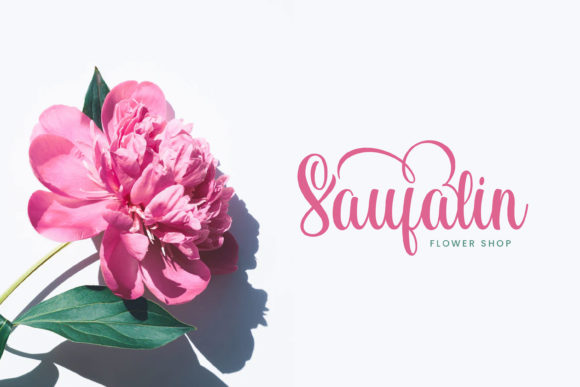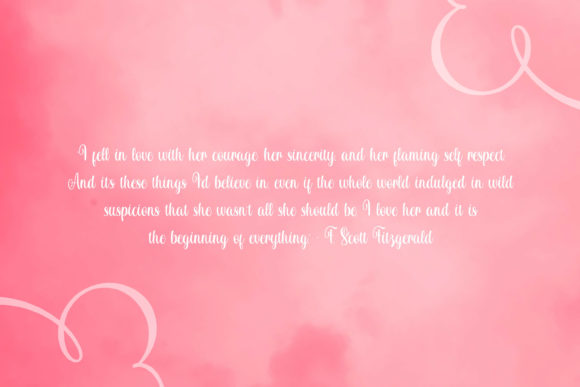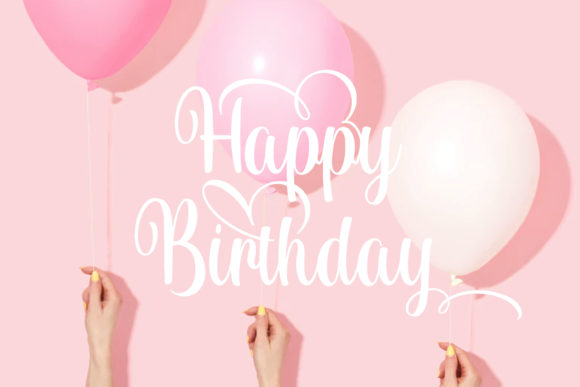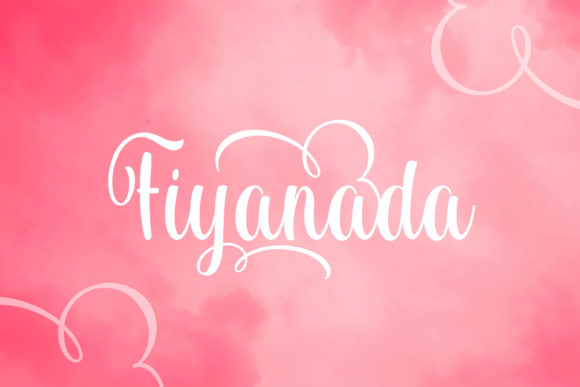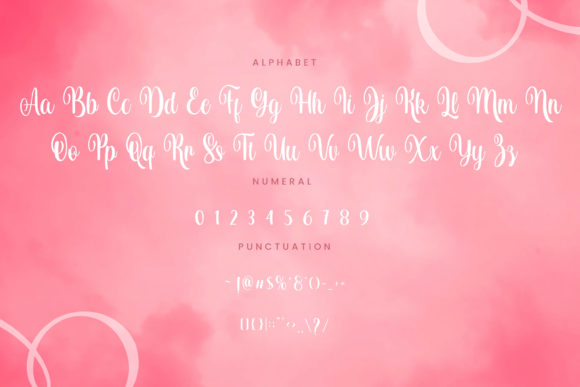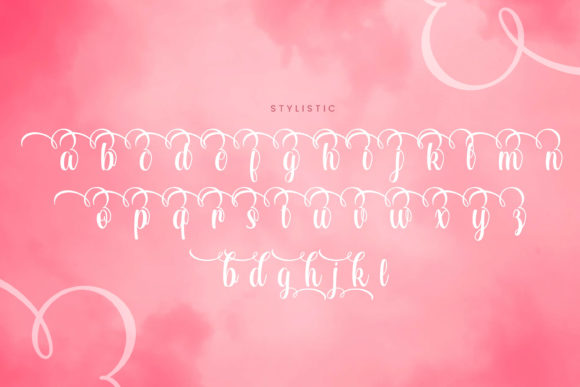
Introduction to Jacintha Font
Jacintha is a stylish and incredibly elegant handwritten font.
It looks stunning on wedding invitations, thank you cards, quotes, greeting cards, logos, business cards and every other design which needs a customized touch .